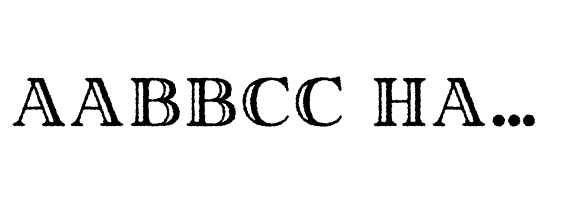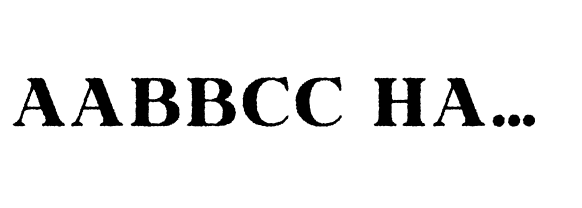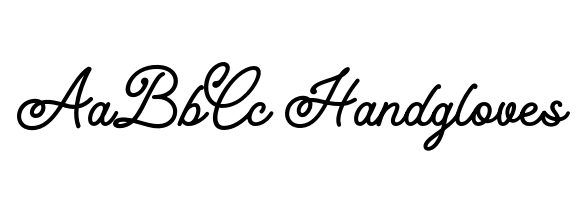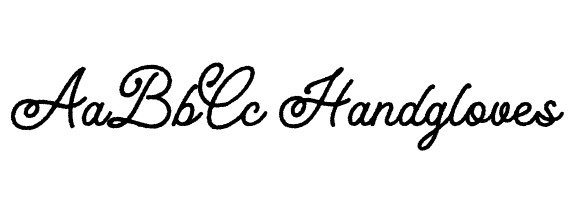
Legend Of Christmas
La familia tipográfica Legend Of Christmas fue diseñada por Pavel Larin y publicada por Larin Type Co. Legend Of Christmas contiene 6 estilos y opciones de paquete familiar. Más información sobre esta familia
Legend of Christmas
This is an amazing font family that includes six fonts: serif, serif rough, decor, decor rough, script, script rough style.
These fonts are perfectly combined with each other and are suitable for both modern and vintage design. Serf has only capital letters and includes a large selection of alternates, play with them and achieve an amazing design. Script will also look great in vintage and modern design and can be used as an additional or main one, it includes a large selection of alternates for lowercase letters.